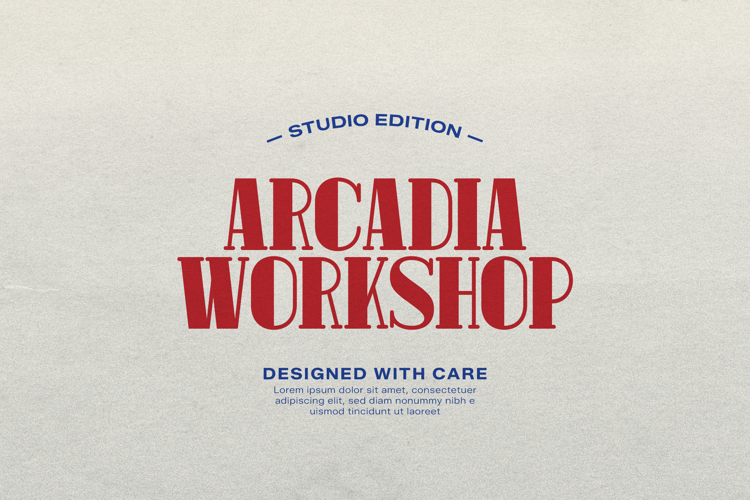
Pitolia Font
Pitolia | Decorative Display Serif is suitable for any projects such as: logos, branding projects, homeware designs, product packaging, mugs, quotes, posters, shopping bags, t-shirts, book covers, name card, invitation cards, greeting cards, label, photography, watermark, special events, and all your other lovely projects that need a Serif taste.